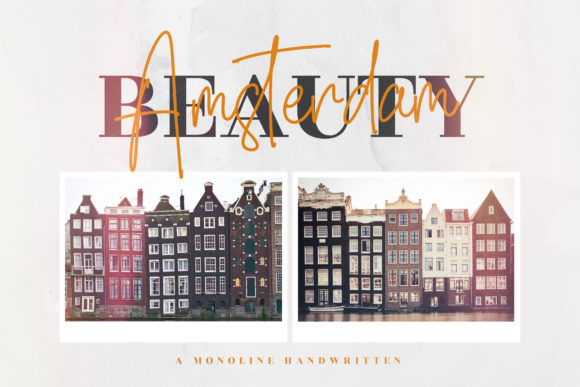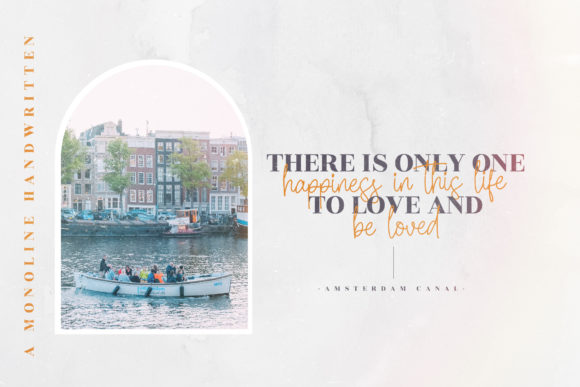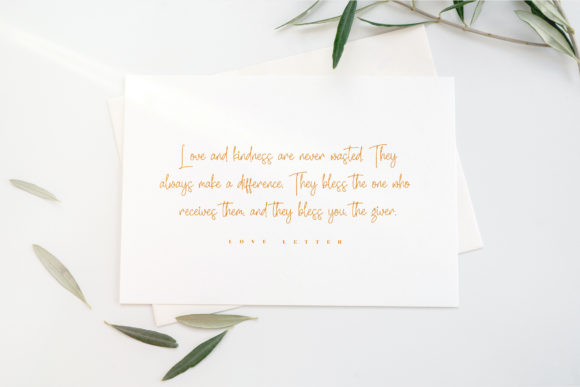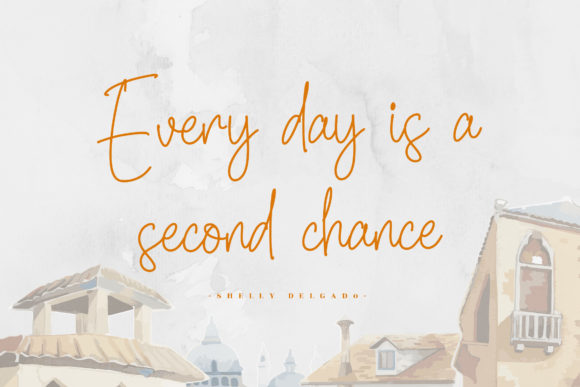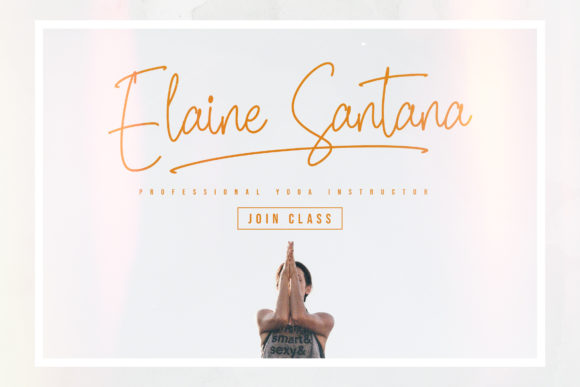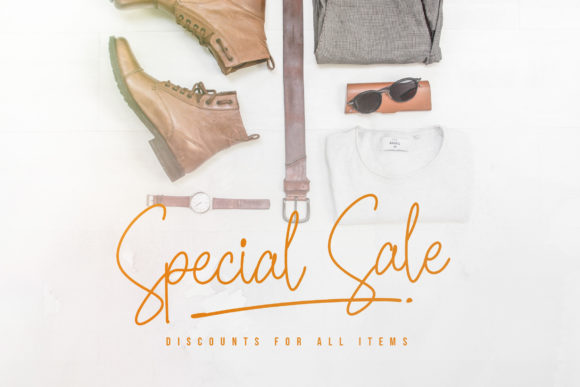
Introduction to North Amsterdam Font Font
Fonts play a crucial role in design, and the North Amsterdam Font font is a typeface that brings both character and versatility to any project. Whether you’re working on a branding project, a website, or a print design, the North Amsterdam Font font offers a unique style that can elevate your work.
North Amsterdam is a thin lettered, relaxed and adaptable script font.
Key Features of North Amsterdam Font Font
Why Choose North Amsterdam Font Font?
The North Amsterdam Font font is more than just a typeface – it’s a design tool that helps you communicate your message with style and clarity. Its unique character set and versatile design make it suitable for a wide range of applications, from elegant invitations to bold headlines.
With its carefully crafted letterforms and balanced proportions, the North Amsterdam Font font ensures readability and visual appeal across all mediums.
What makes North Amsterdam Font font special?
The North Amsterdam Font font stands out with its unique design, exceptional readability, and versatility across various design applications.